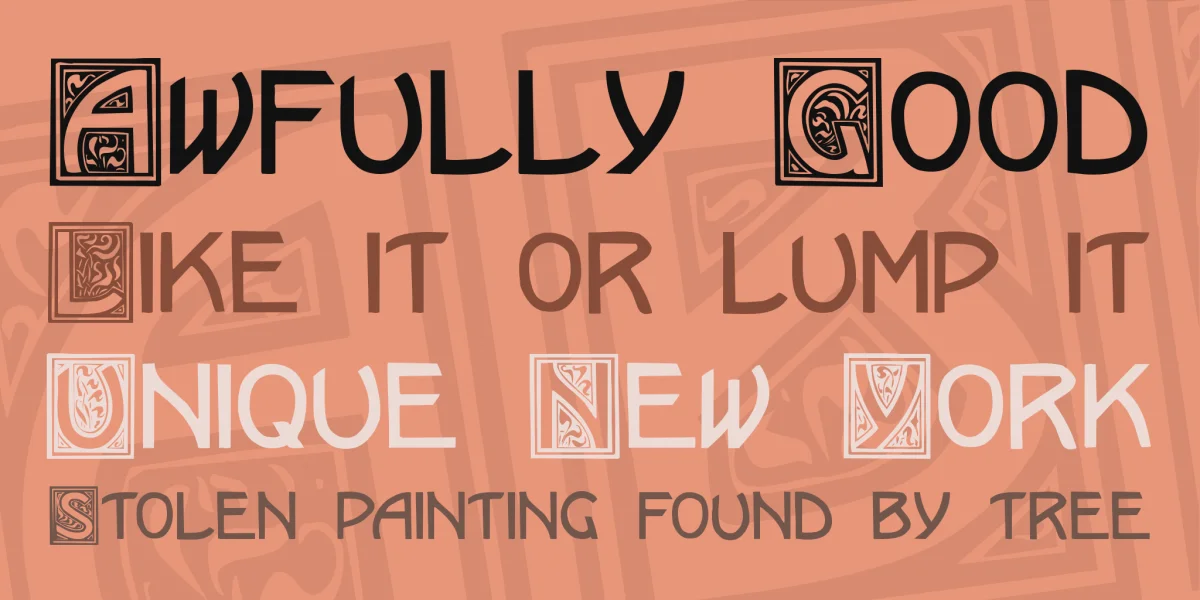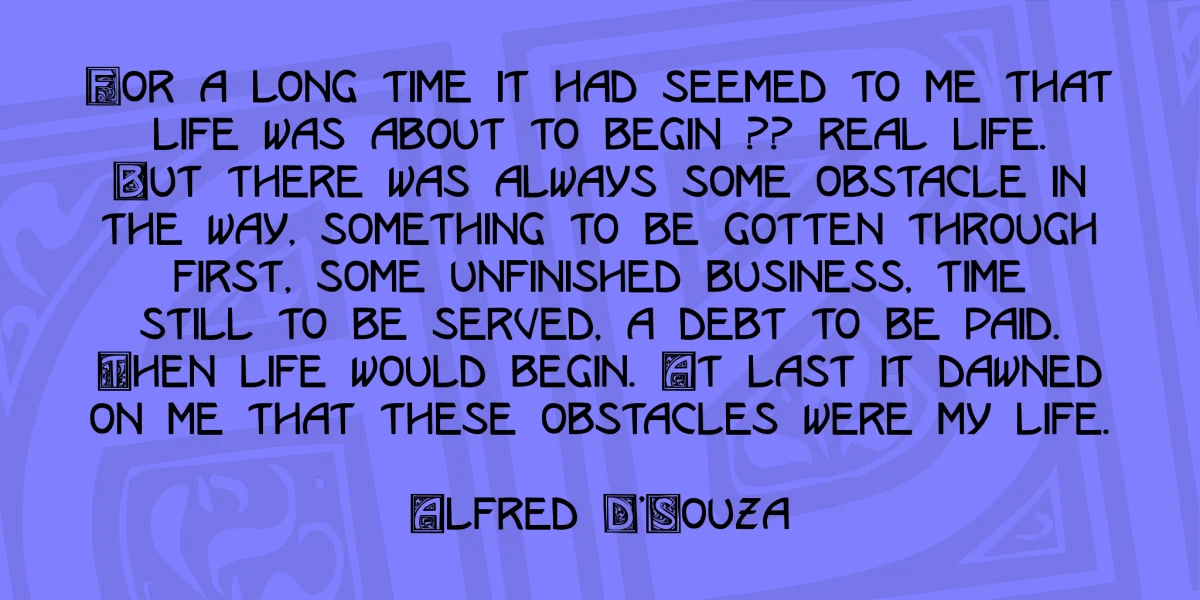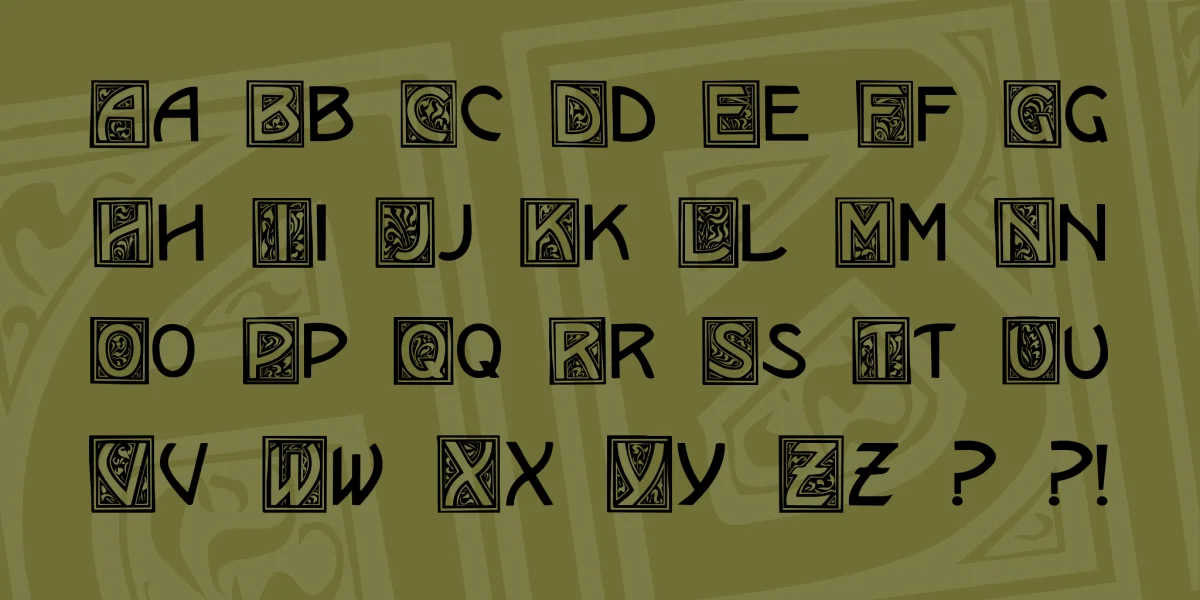
KRAMER is an Art Nouveau drop cap font with the letter outlines themselves cut out to form the lower case letters. (Copyright by David Rakowski). The font is FREE but if you feel generous, a check could be made out to Columbia University and sent to Cynthia Lemiesz, 703 Dodge Hall, Columbia University, New York, NY 10027 where the payments are treated as tax-deductible donations to help the sadly underfunded Columbia Composers put on their concerts